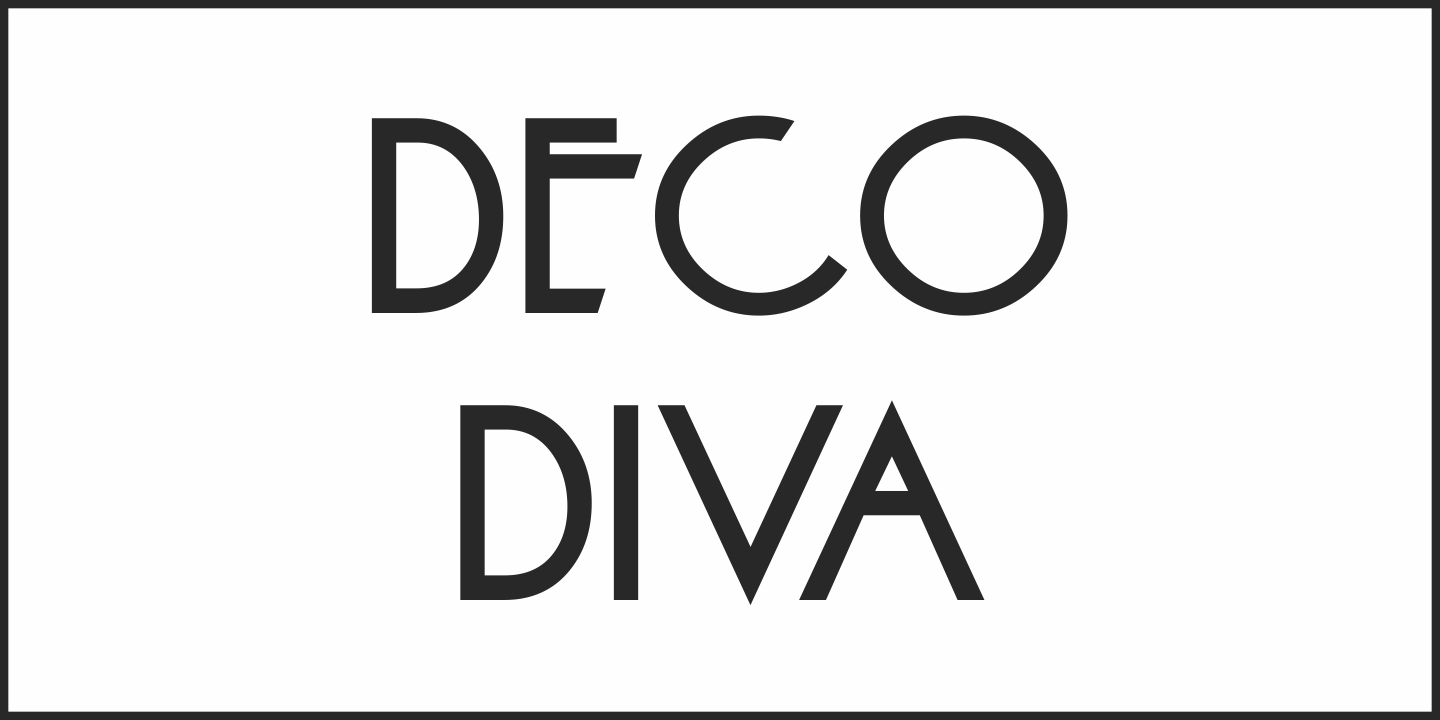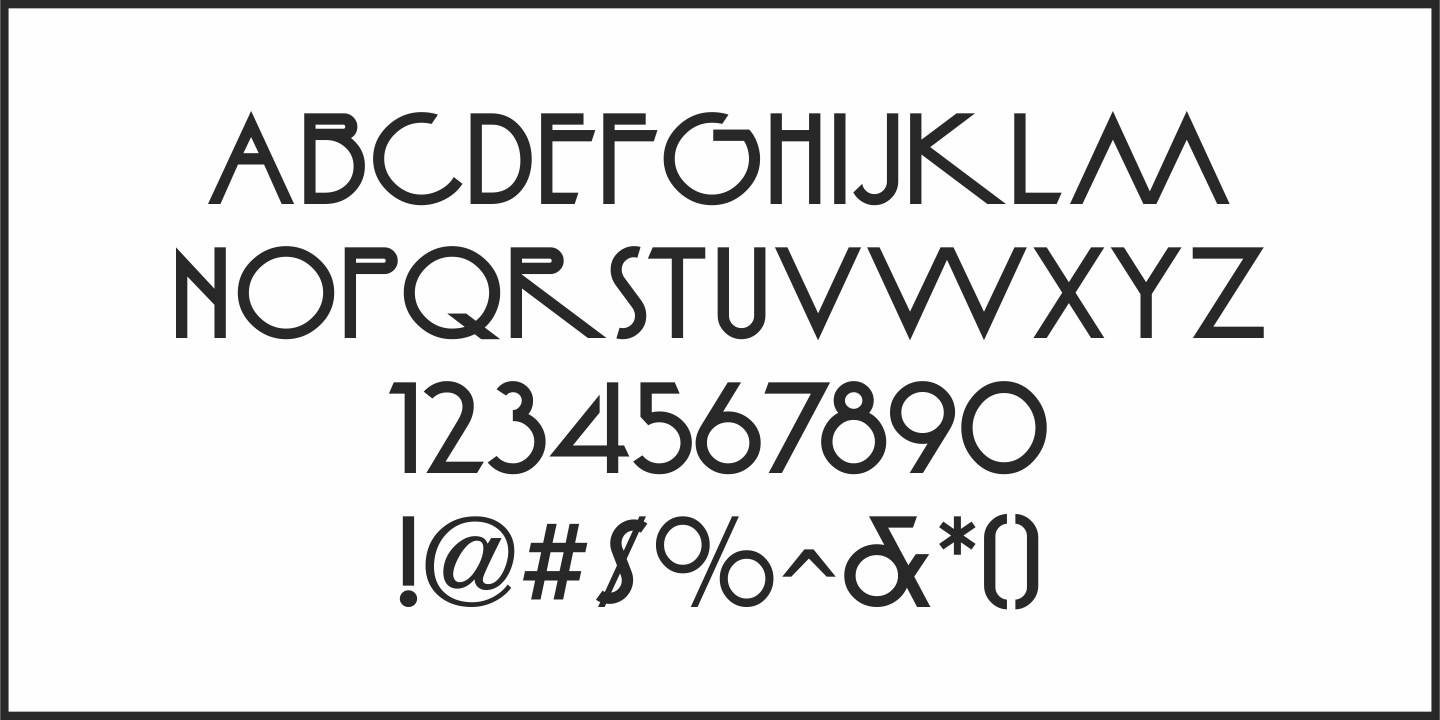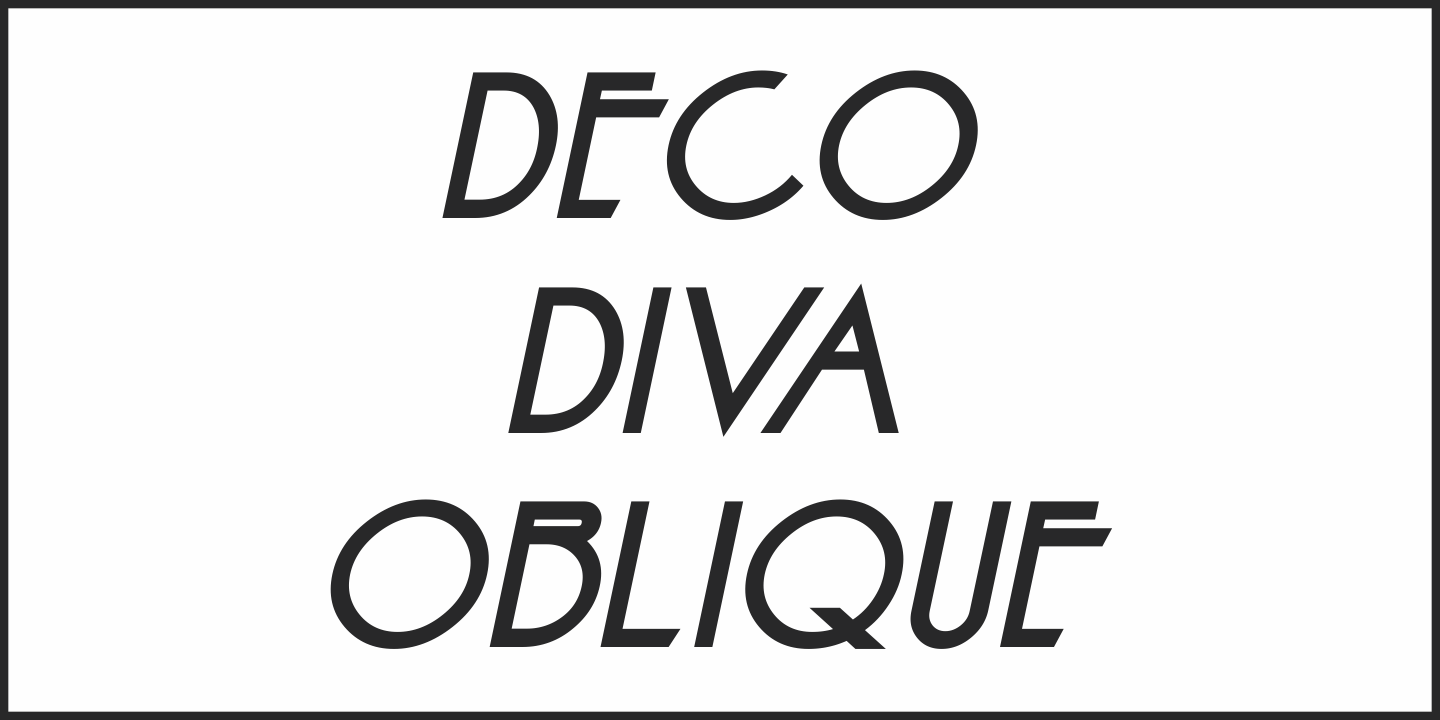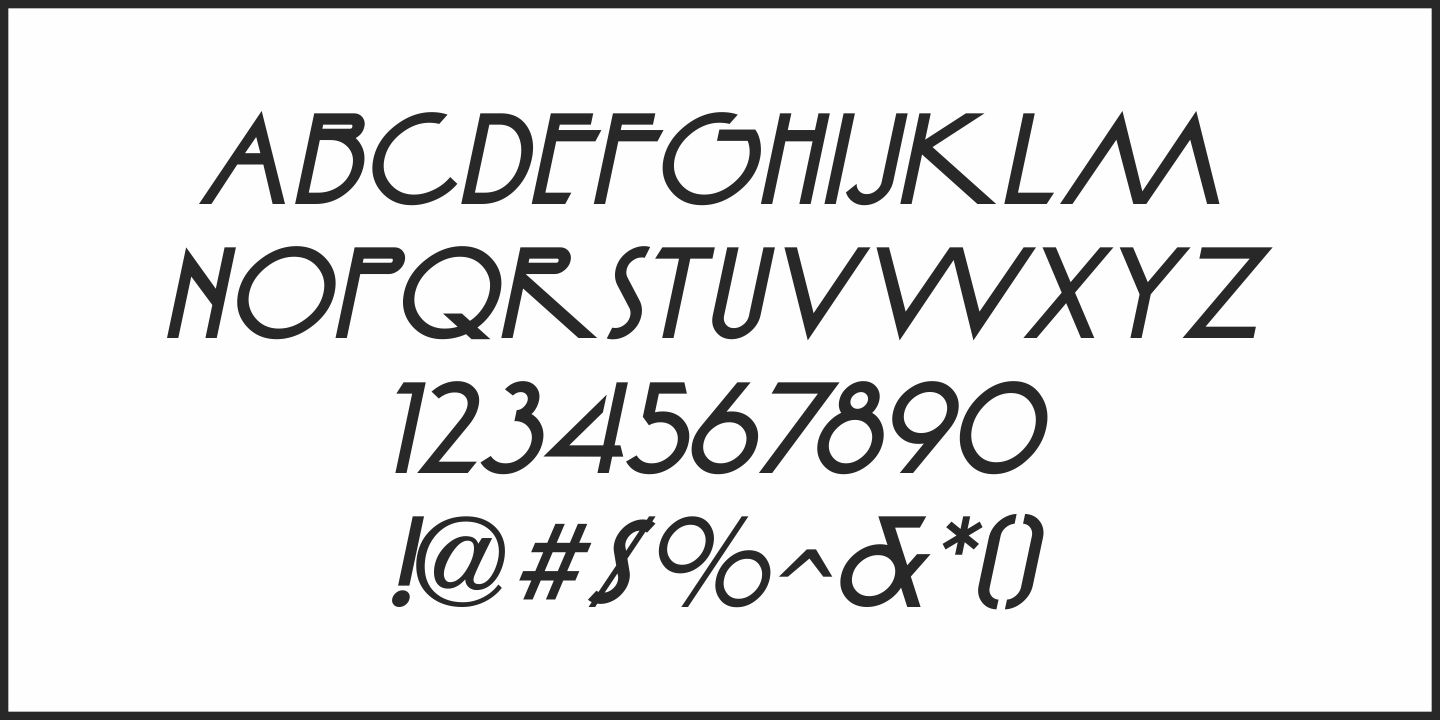
Deco Diva
The title hand lettered onto the 1933 sheet music cover for “Yours is My Heart Alone” represents the classic Art Deco typographic features of unusual character shapes and widths, yet at the same time it projects simplicity in geometric design.
This served at the basis for Deco Diva JNL, which is available in both regular and oblique versions.